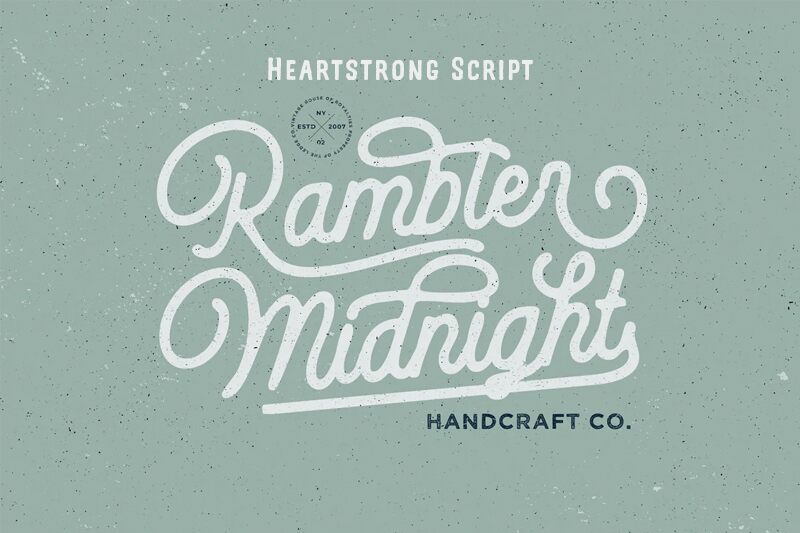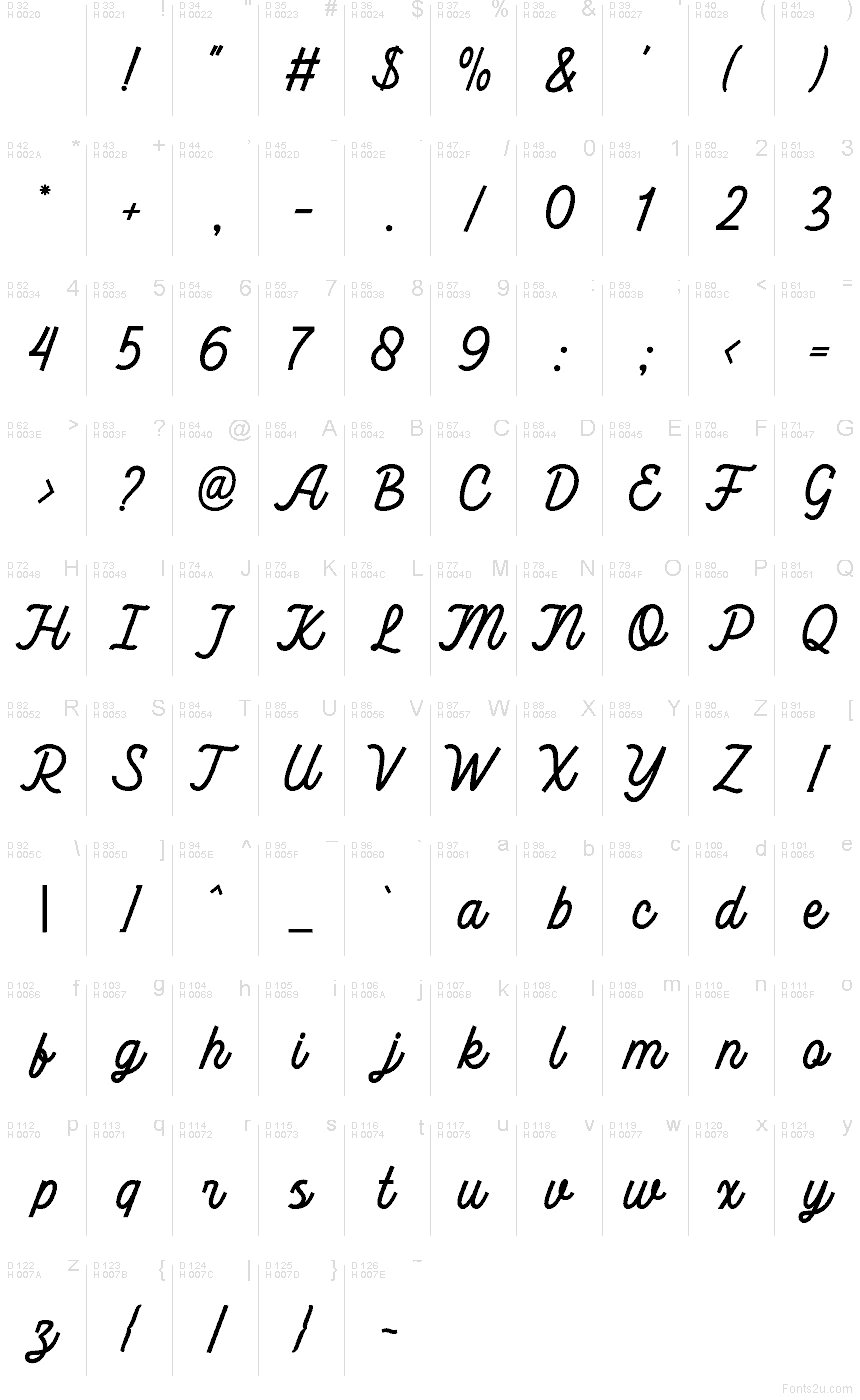
Heartstrong Script font by Get Studio is a free handwritten script typeface with a smooth, inky flow that feels like a careful signature on good stationery. Its gentle slant, rounded curves, and consistent stroke weight give it a friendly, confident rhythm-elegant without being fragile, personal without getting messy. The letters link together in an easy, continuous line that reads clearly at a glance, even in longer words and phrases.
Using Heartstrong Script, you can bring a warm, human touch to wedding invitations, save-the-dates, boutique branding, product packaging, social media graphics, and greeting cards. This free font shines when you give it room to breathe in headlines, names, and short quotes, then pair it with a clean sans serif for supporting text. Set it a bit larger than usual to let those looping connections and soft curves really show their charm.